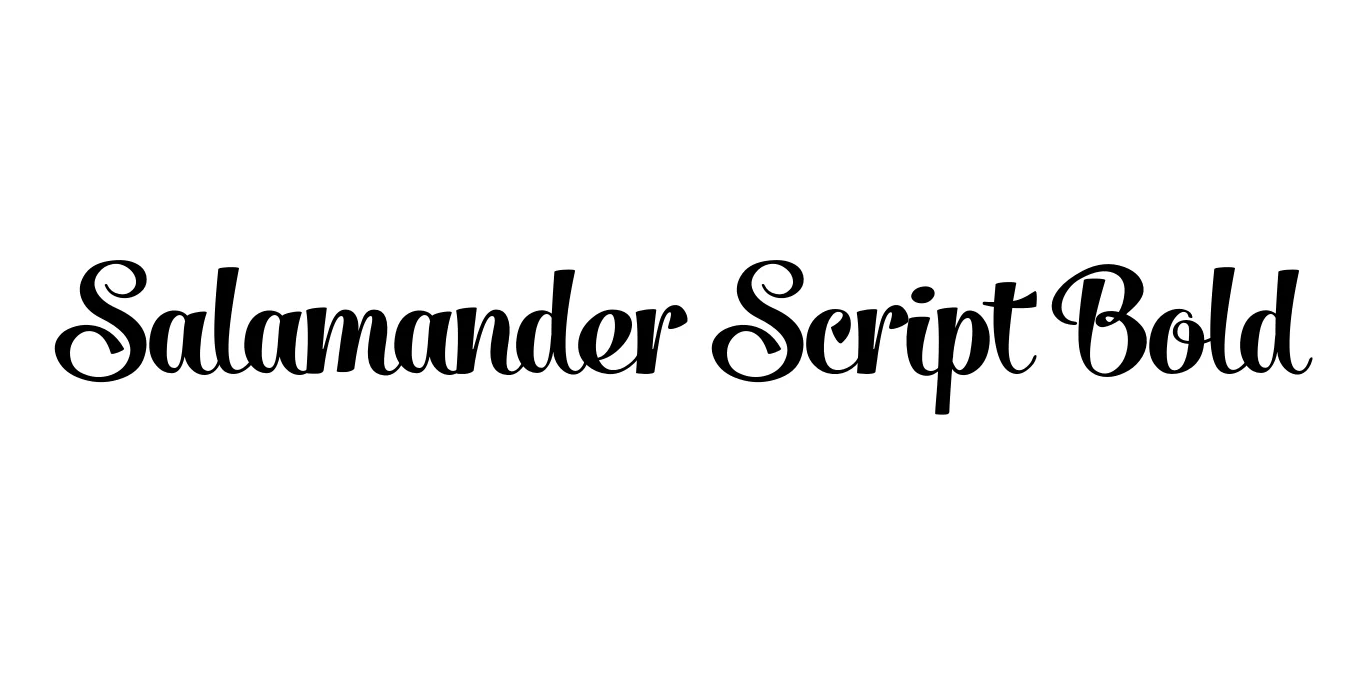
Salamander Script Bold
Designed by Emil Bertell
Salamander Script Bold is a sophisticated and fluid script font designed by the renowned typographer Emil Bertell of the Fenotype foundry. This typeface stands out for its robust, brush-like strokes that maintain a rhythmic connectivity, making it an excellent choice for designs that require a hand-lettered yet professional appearance. The bold weight is particularly striking, offering increased visibility and a strong personality that captures the viewer's attention instantly, bridging the gap between casual handwriting and formal calligraphy.
Released as part of a larger family, this font includes a variety of OpenType features such as swashes, ligatures, and stylistic alternates. These elements allow designers to create unique typographic compositions for branding, packaging, and high-end advertising. Its versatile nature makes it equally suitable for retro-themed projects and modern editorial designs, ensuring a timeless aesthetic that works across both digital and print media platforms.
Salamander Script Bold Best Uses
Excellent for creating distinct and memorable brand identities with a human touch.
Adds a premium, hand-crafted feel to food, beverage, and luxury product labels.
The bold strokes provide a luxurious and celebratory look for formal event stationery.
Perfect for high-impact quotes, stories, and promotional banners that need to stand out.